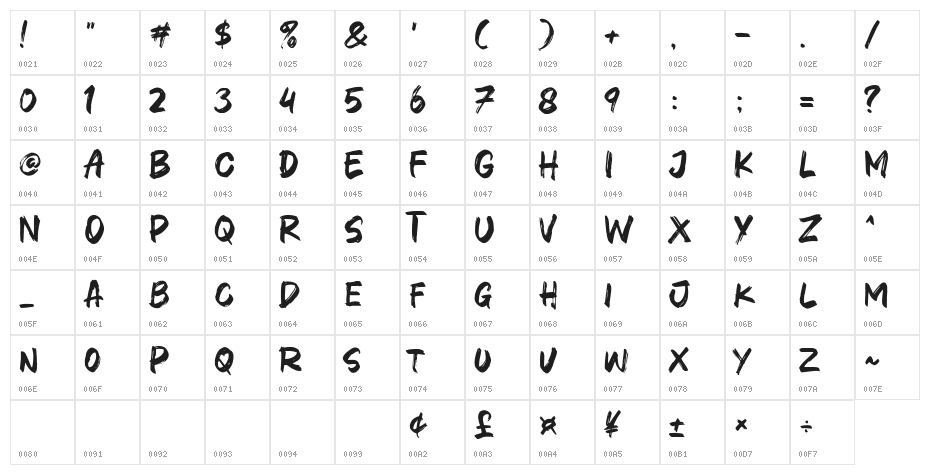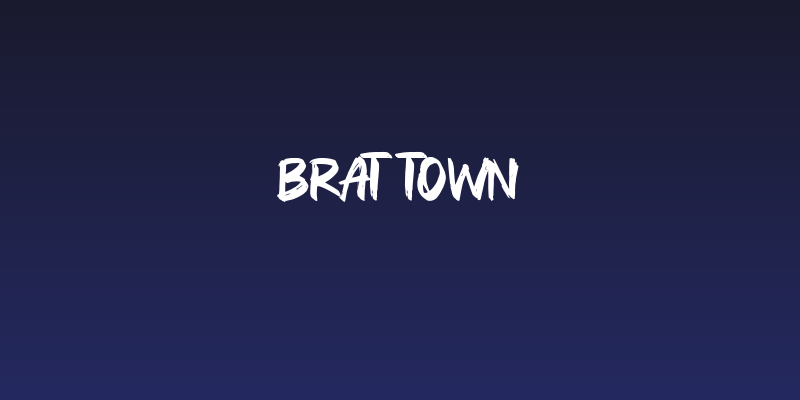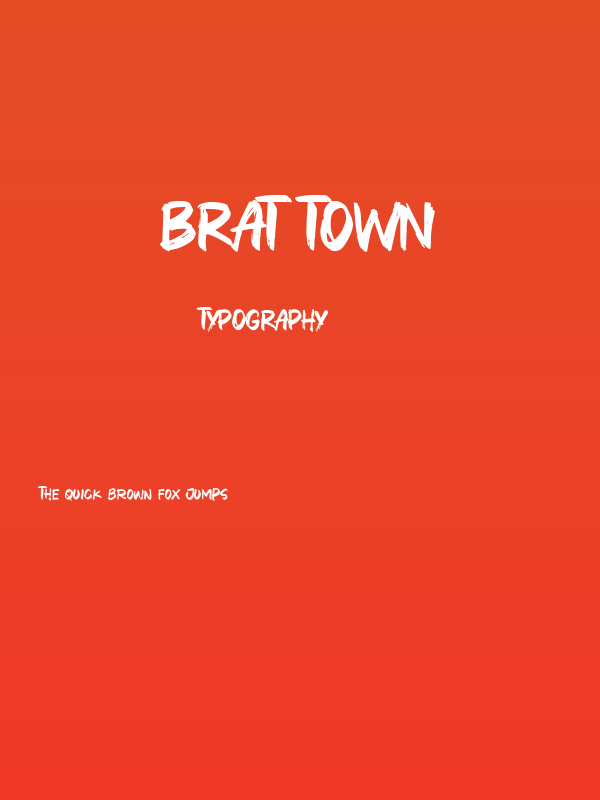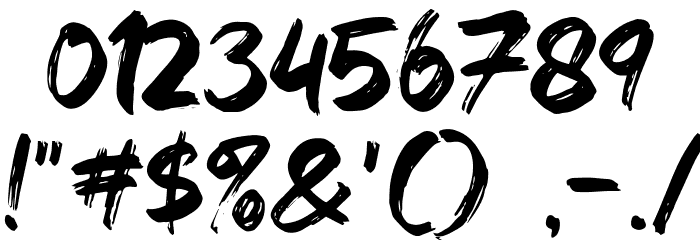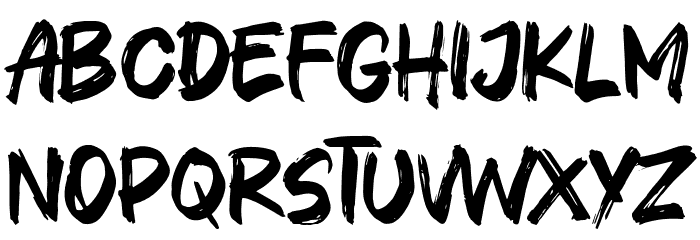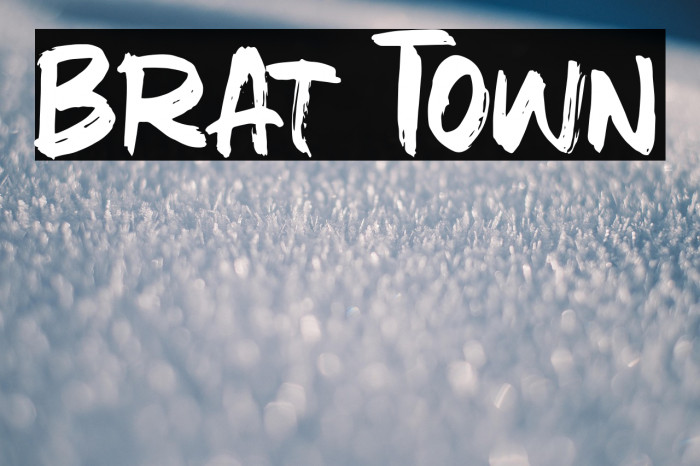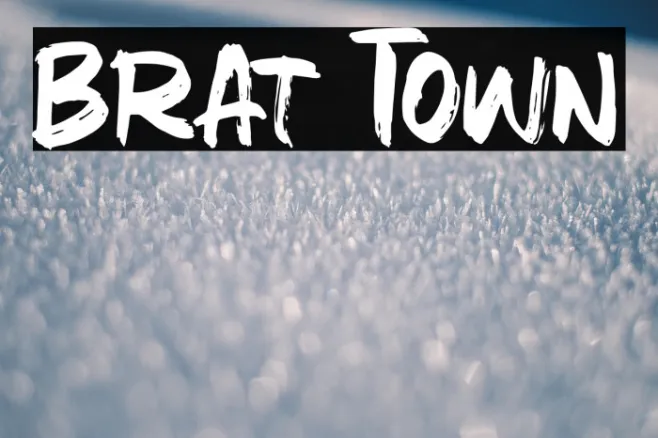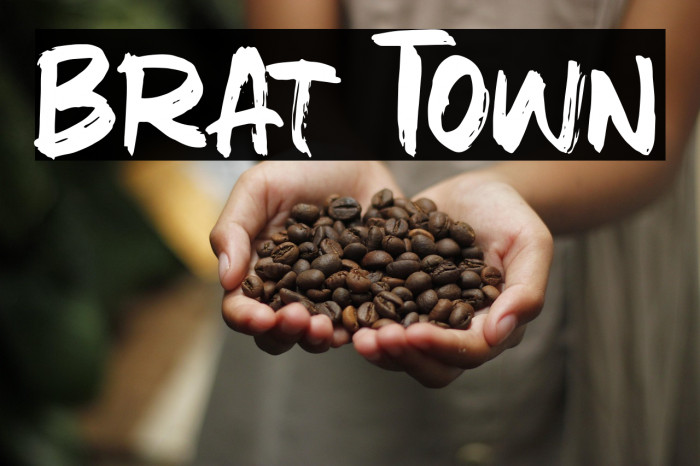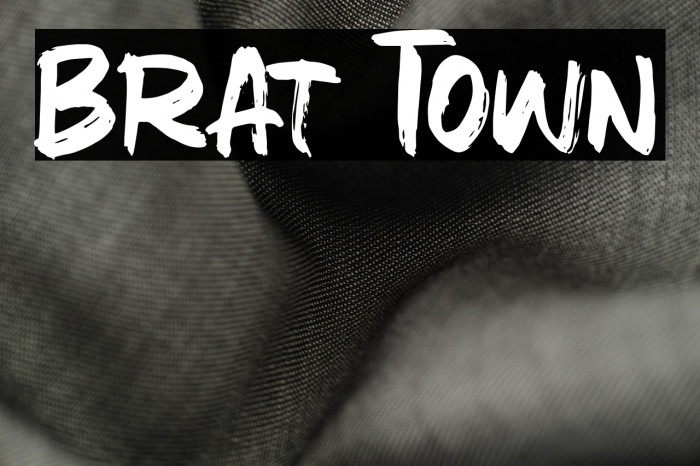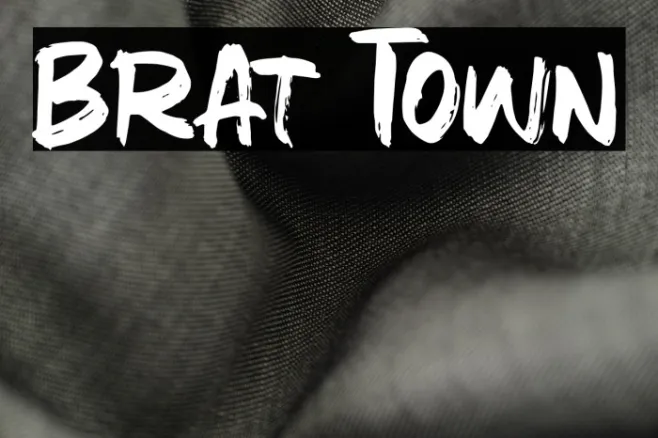
Brat Town Font
Brat Town Description
This font features a bold and expressive handwritten style, characterized by its brush-like strokes and dynamic appearance. The letters are slightly irregular, giving it a lively and energetic feel. The uppercase and lowercase letters maintain a consistent style, with a noticeable emphasis on thick and thin contrasts within each character. The numbers and special characters follow the same design, ensuring a cohesive look across all elements. This font's artistic flair makes it suitable for creative and eye-catching designs.
| Proposed Projects | Ideal for posters, album covers, branding, and creative advertising. |